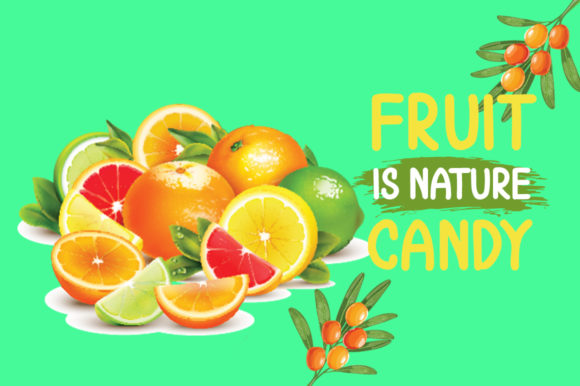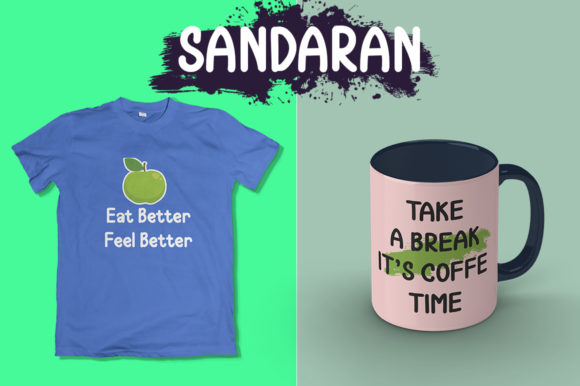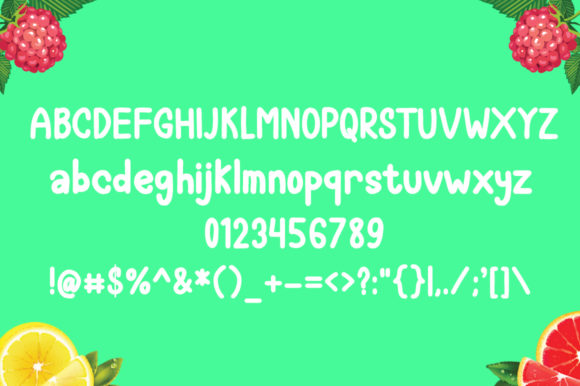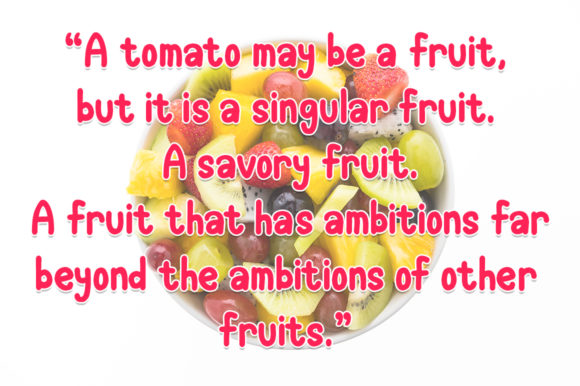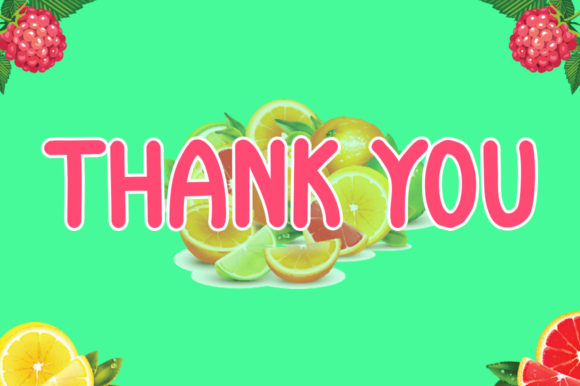
Introduction to Sandaran Font
The Sandaran is a display typeface with a cheerful theme.
Its unique handwritten style is perfect for adding a fun and playful touch to your designs It’s great For Easter designs, holiday’s, cards, accessories, and every other designs that need a cute and playful theme.